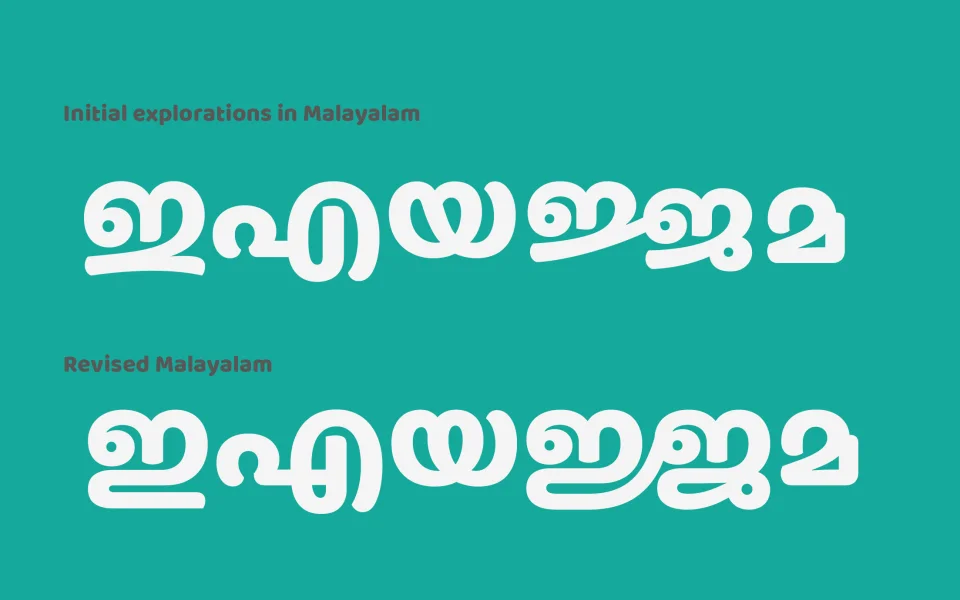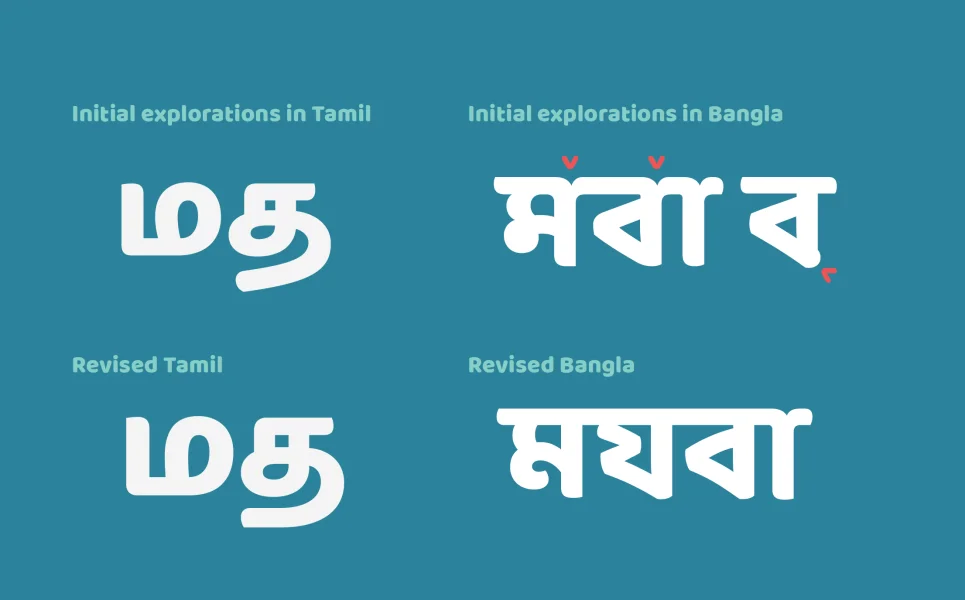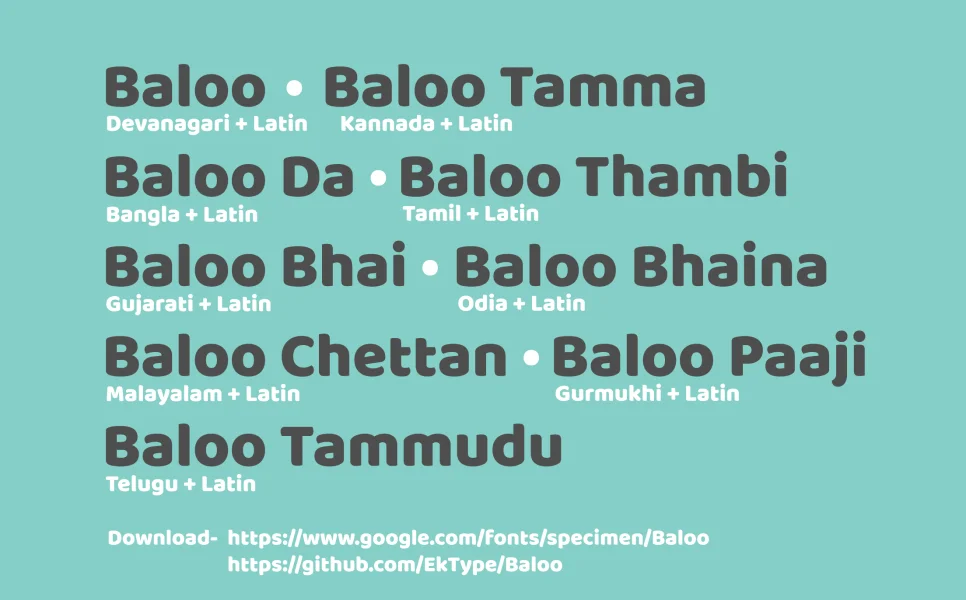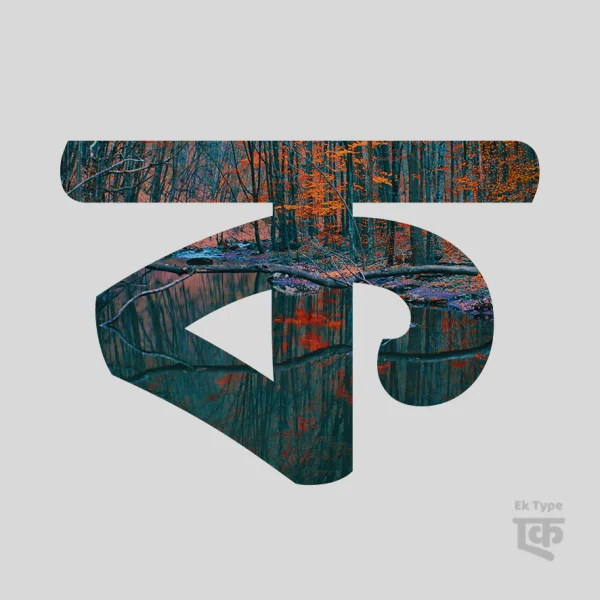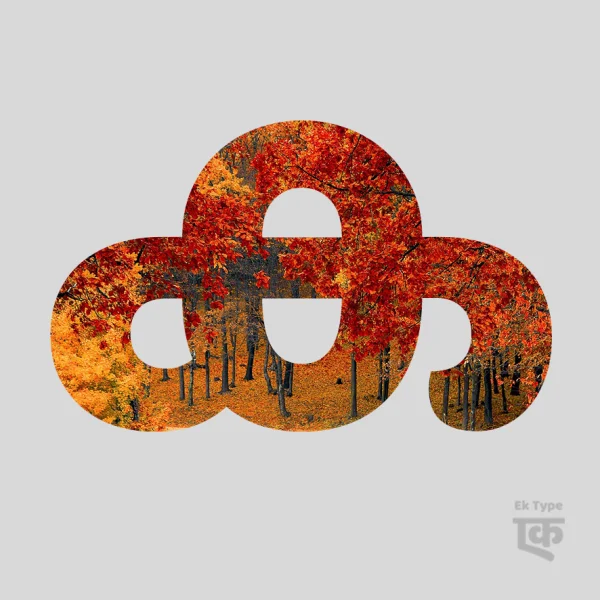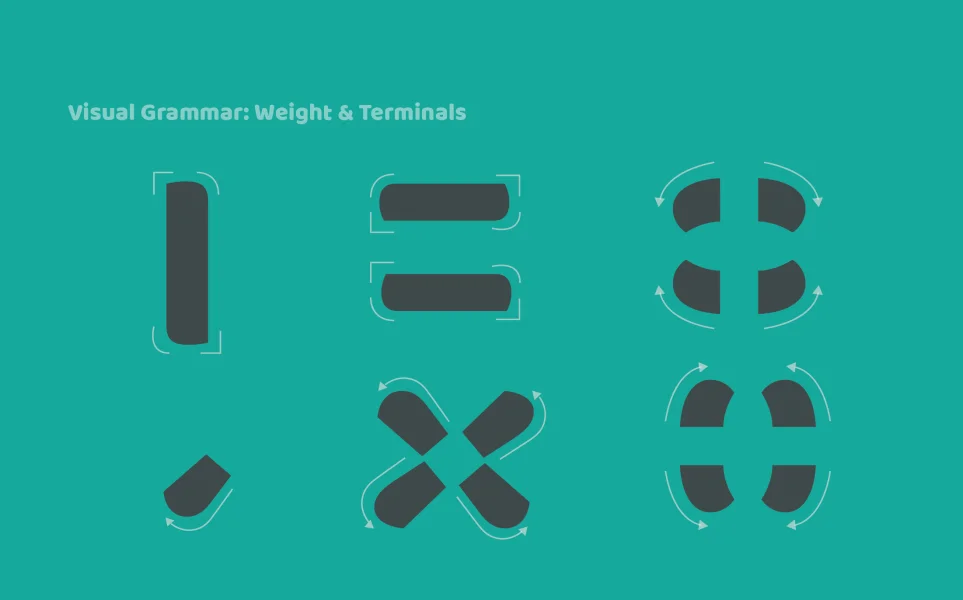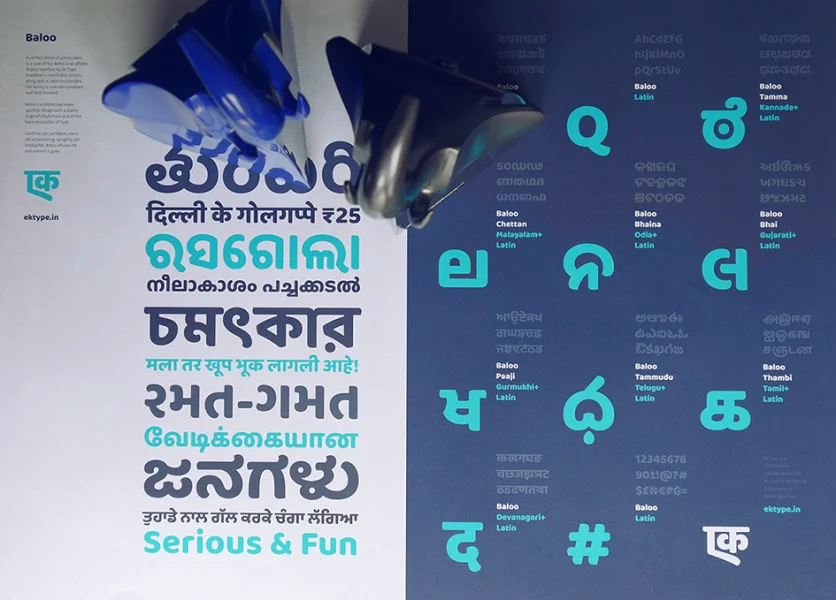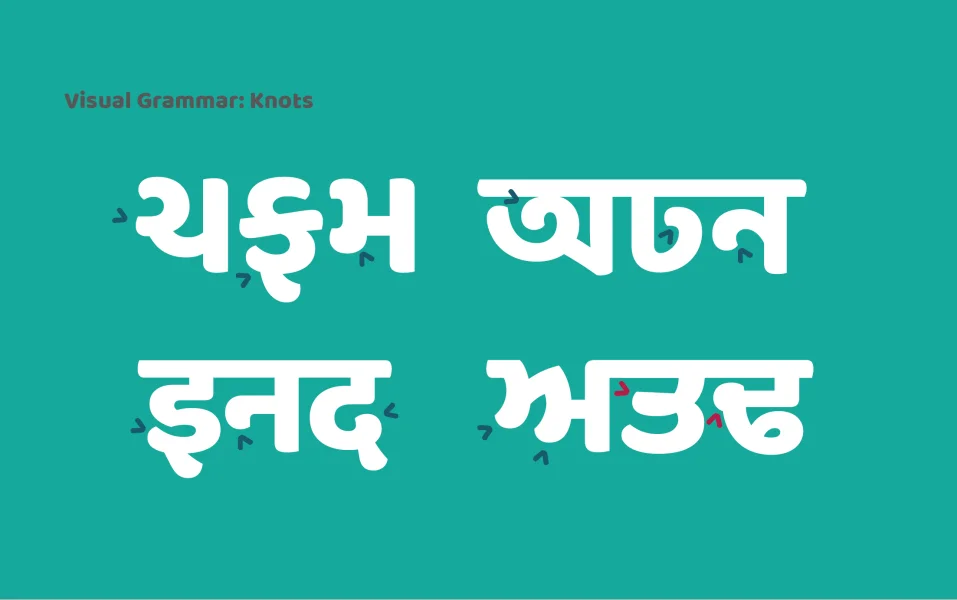
A perfect blend of pointy paws in a coat of fur, Baloo is an affable display typeface by Ek Type. Available in nine Indian scripts along with a Latin counterpart, the family is Unicode compliant and libre licensed.
Baloo is a distinctive heavy spurless design with a subtle tinge of playfulness and all the bare necessities of type. Snuggling several scripts under a single weight, the typeface focuses on giving equal justice to every act of this gentle jungle affair to secure single and multi-script use. Carefree yet confident, warm yet entertaining, sprightly yet intelligible, Baloo infuses life everywhere it goes.
The Baloo project develops nine separate fonts with unique local names for each of the nine Indic Scripts. Each font supports one Indic subset plus Latin, Latin Extended, and Vietnamese.
- Baloo for Devanagari
- Baloo Bhai for Gujarati
- Baloo Bhaijaan for Urdu (Nastaʿlīq Arabic)
- Baloo Bhaina for Oriya
- Baloo Chettan for Malayalam
- Baloo Da for Bengali
- Baloo Paaji for Gurumukhi
- Baloo Tamma for Kannada
- Baloo Tammudu for Telugu
- Baloo Thambi for Tamil
Well fed and thoroughly nourished across every script, it took a team of committed type designers to rear Baloo and raise it to be the typeface we love. Baloo Devanagari is designed by Sarang Kulkarni, Gurmukhi by Shuchita Grover, Bangla by Noopur Datye, Oriya by Manish Minz and Shuchita Grover, Gujarati by Supriya Tembe and Noopur Datye, Kannada by Divya Kowshik, Telugu by Omkar Shende, Malayalam by Maithili Shingre, Urdu by Devika Bhansali and Tamil by Aadarsh Rajan. Baloo Latin is collaboratively designed by Ek Type. Type design assistance and font engineering by Girish Dalvi.